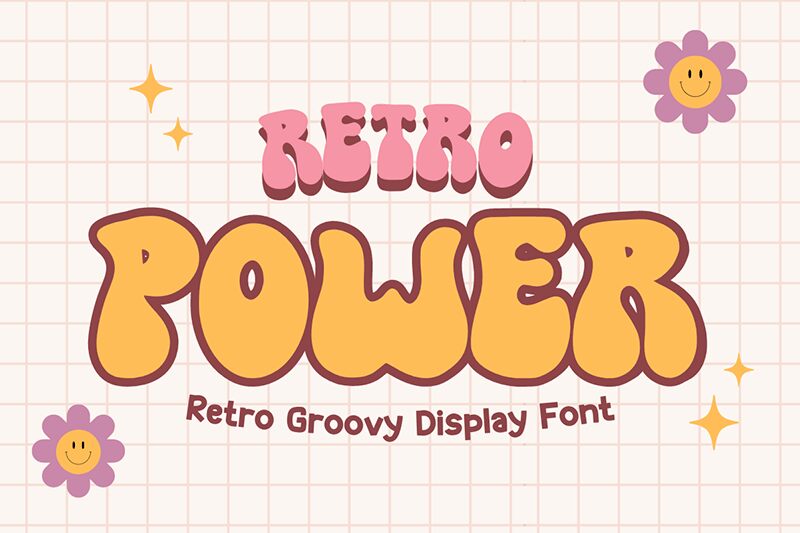
Retro Power font by Muhammad Afif of Minimalist Eyes is a display typeface that features retro groovy styles. It inspires nostalgia with bold appearances, whimsical vibes, and a playful charm. The design of the font is heavily focused on the 1970s time period making it suitable for vintage themes in particular.
Use this free retro font for headings, posters, banners, invitations, branding projects, packaging and label design projects among other concepts. It can evoke positive excitement and energy professionally whenever needed! Use Retro Power in digital or printed works as both will benefit from using the fresh design ideas and creativity used to create this typeface.